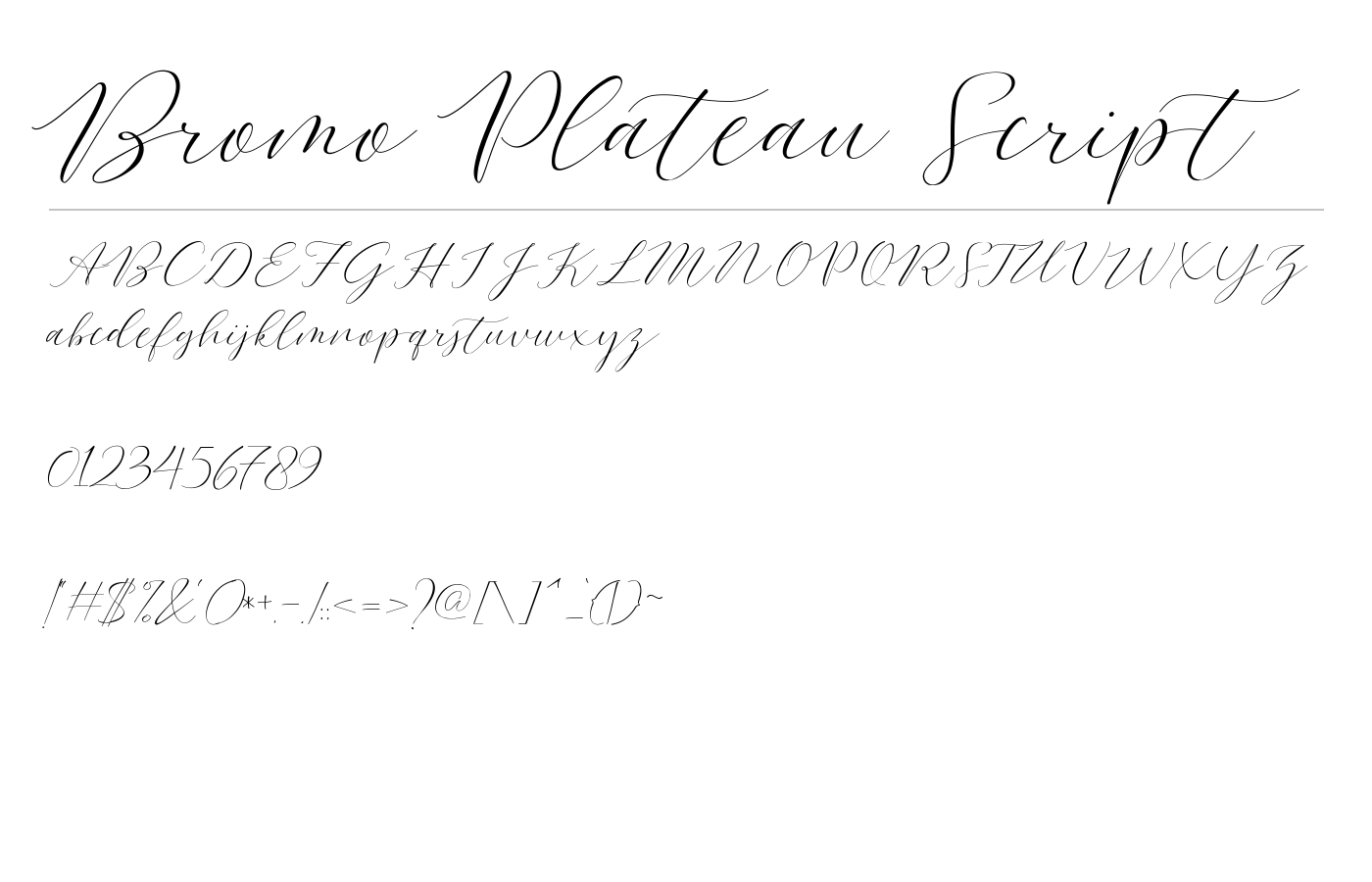
Bromo Plateau Script is an elegant, delicate script font characterized by its thin, flowing strokes and graceful, cursive letterforms. Its light weight and tall, airy design make it perfect for sophisticated branding, wedding invitations, and luxury editorial use where a refined, personal touch is desired. This font’s fine lines and sinuous curves communicate elegance and charm, ideal for designs that need a stylish and graceful appearance.
Bromo Plateau Script Font
About Bromo Plateau Script Font
| Font family | Bromo Plateau Script Font |
| Designer | Zeenesia 2021 |